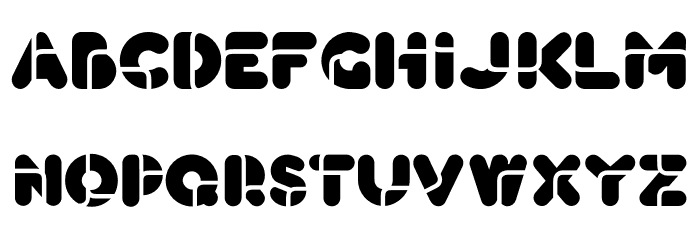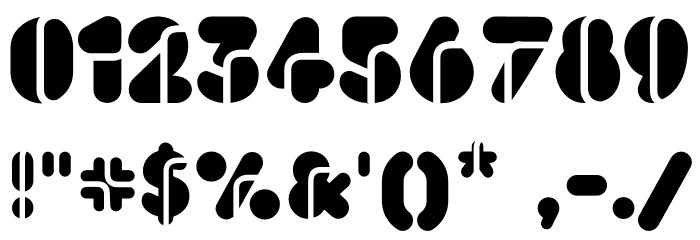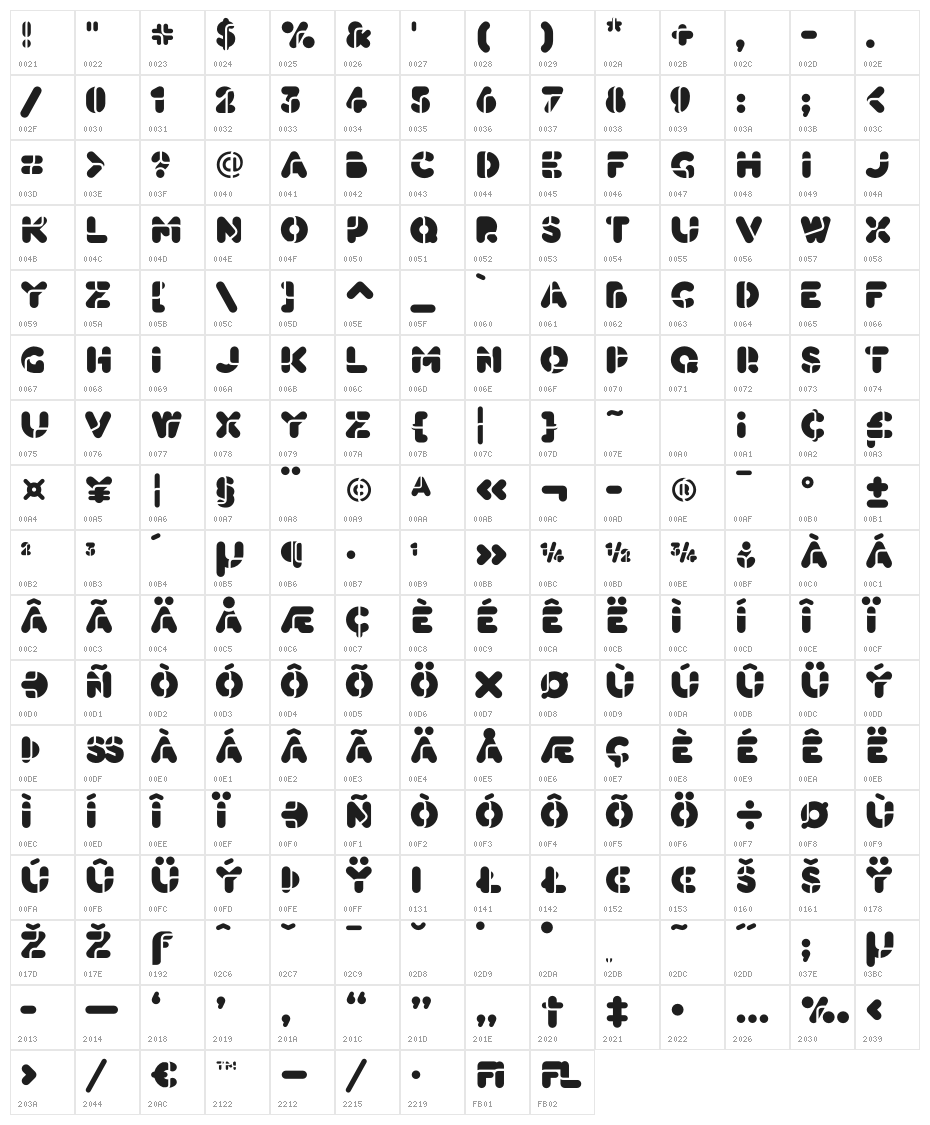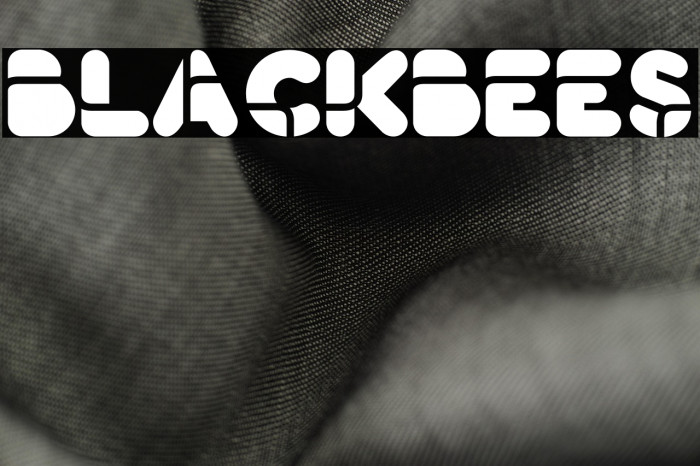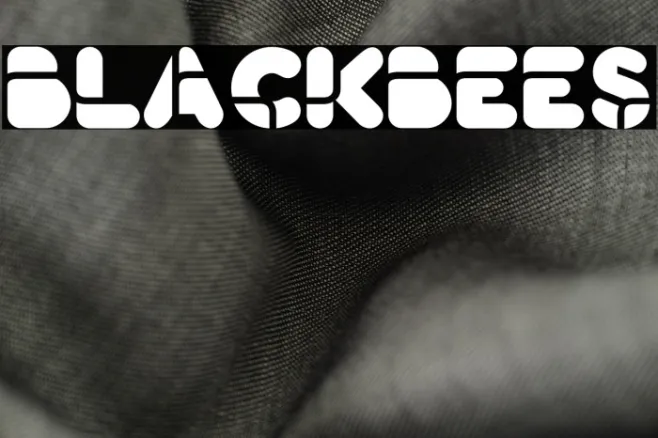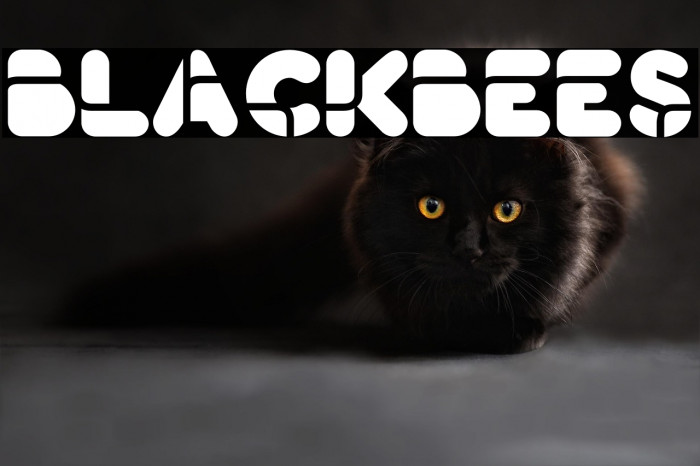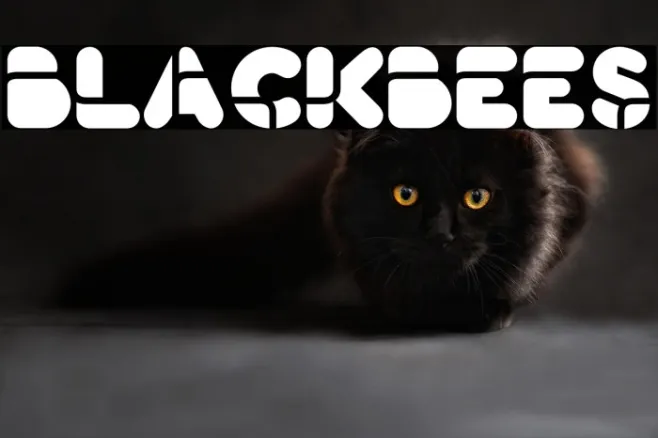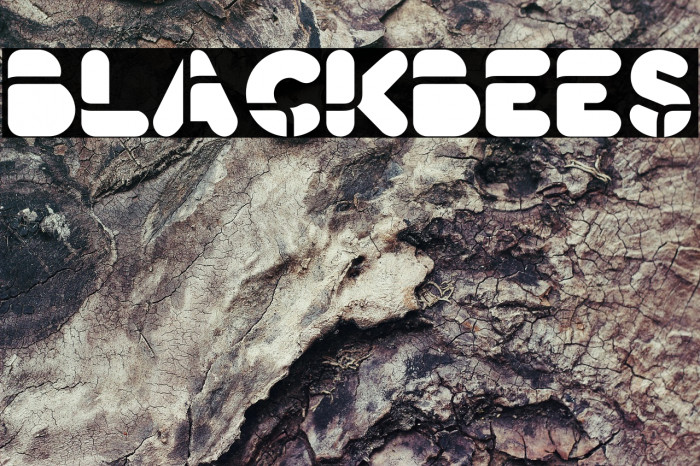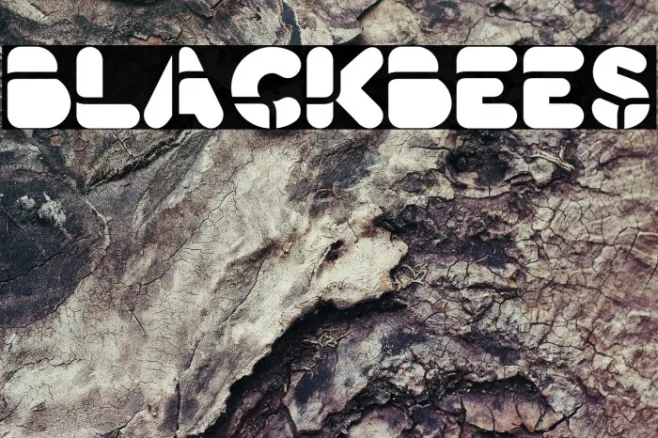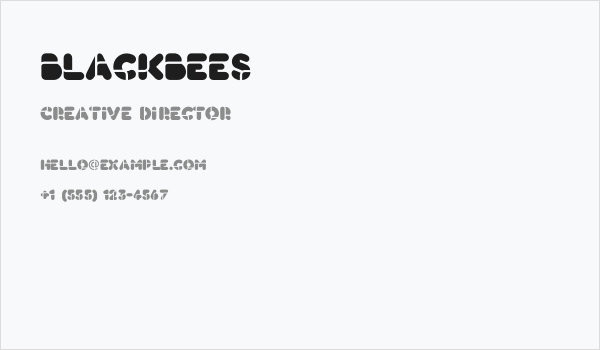
BlackBees Font
This font features a bold, geometric design with a modern and futuristic appeal. The characters are constructed with thick, solid strokes and distinctive cut-out sections that create a unique, segmented appearance. The uppercase and lowercase letters share a consistent style, maintaining the bold and blocky aesthetic throughout. Numbers and special characters are designed to match the overall theme, ensuring a cohesive look across all text elements. This font's striking visual style makes it ideal for attention-grabbing designs.
A bold, geometric font with a modern, segmented design.
- Font: BlackBees
- Proposed Projects: Ideal for branding, posters, headlines, and any project requiring a modern, eye-catching typeface.